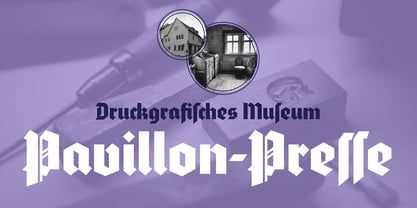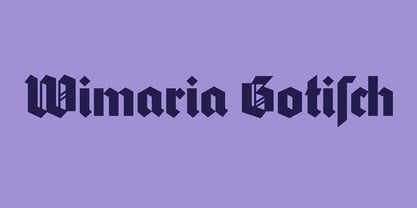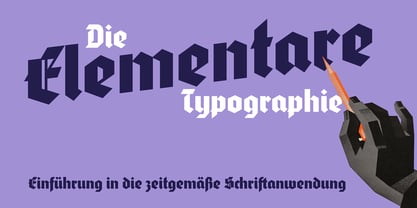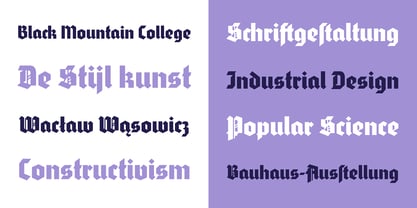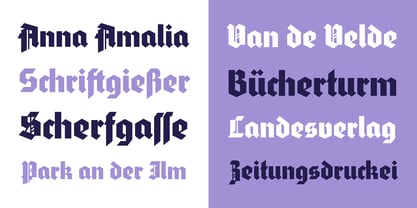
Wimaria Gotisch
Die Schriftfamilie Wimaria Gotisch wurde von Ralf Herrmann entworfen und von FDI veröffentlicht. Wimaria Gotisch enthält 1 Stile. Mehr über diese Familie
This typeface was digitized from an old letterpress font from the collection of the printing museum Pavillon-Press. The original typeface was designed by Max Bittrof. The design was extended to include a complete Western (Win 1252/Mac Roman) and Central European character set. The optional decorative caps are included as swash glyphs. In total, the font now contains 462 glyphs.